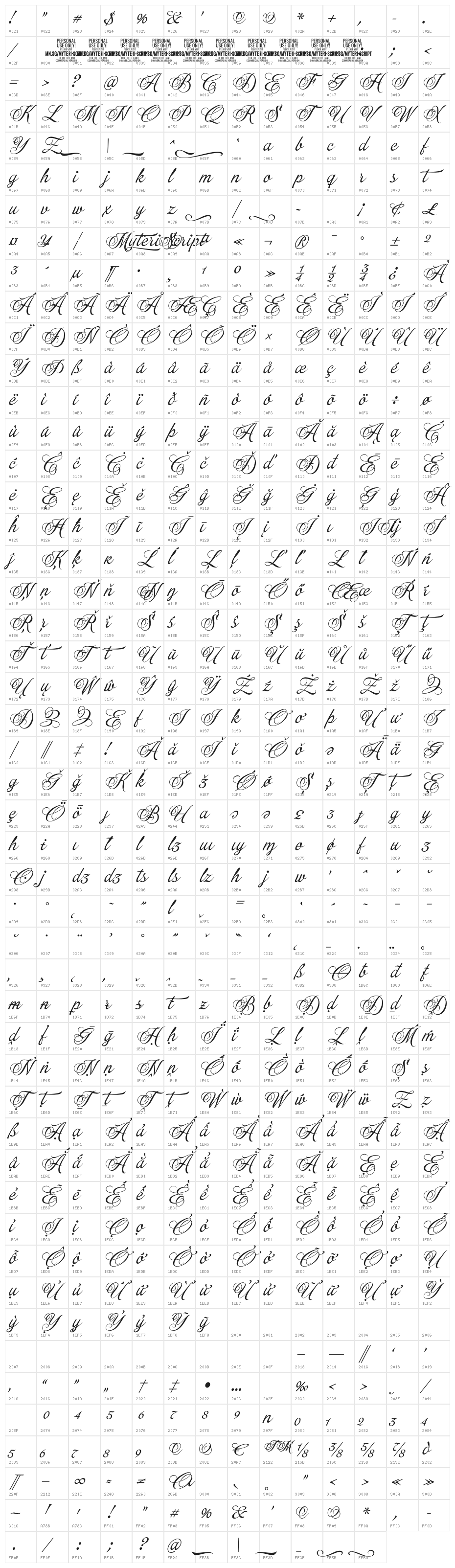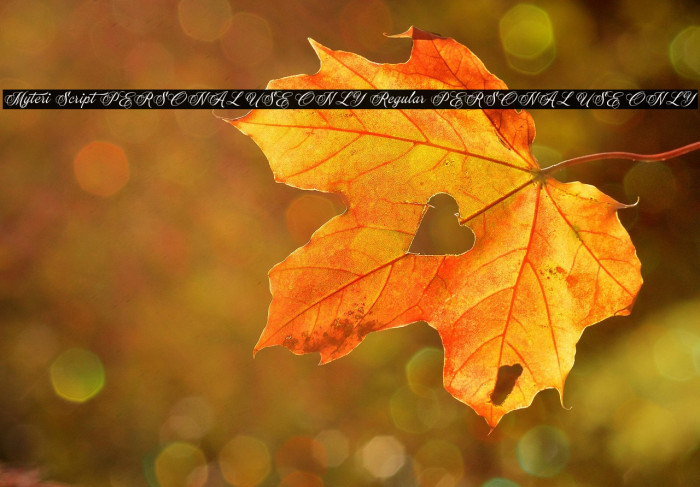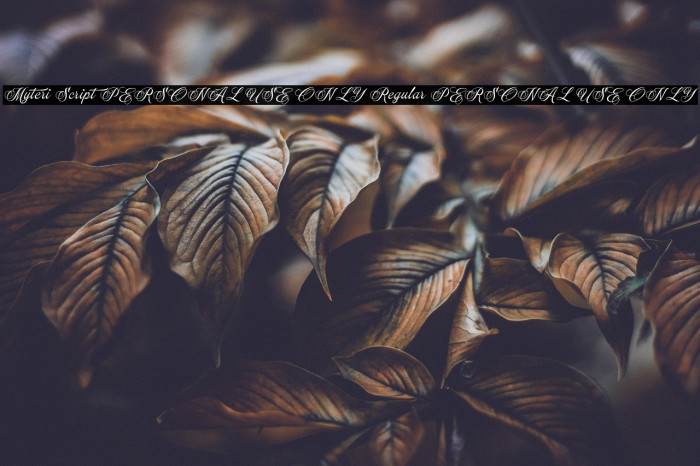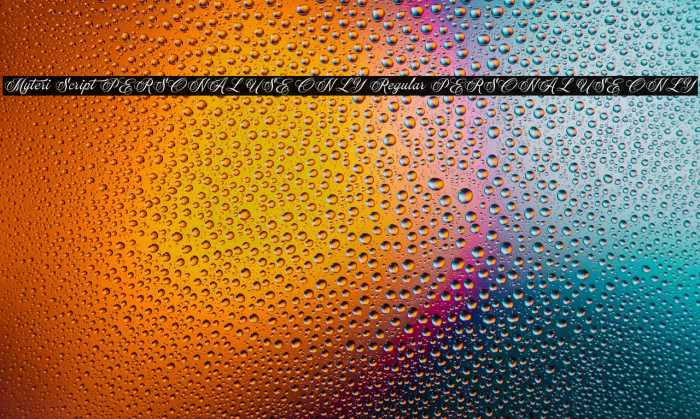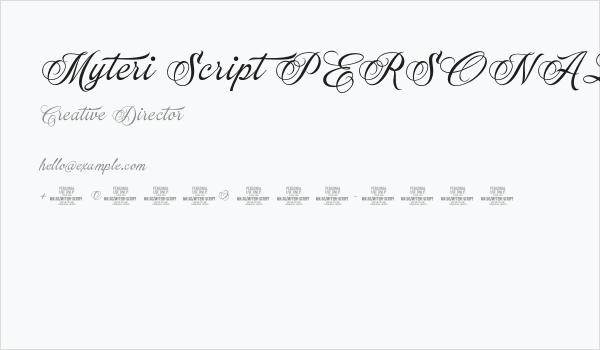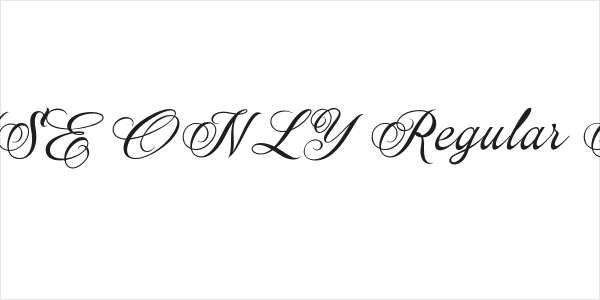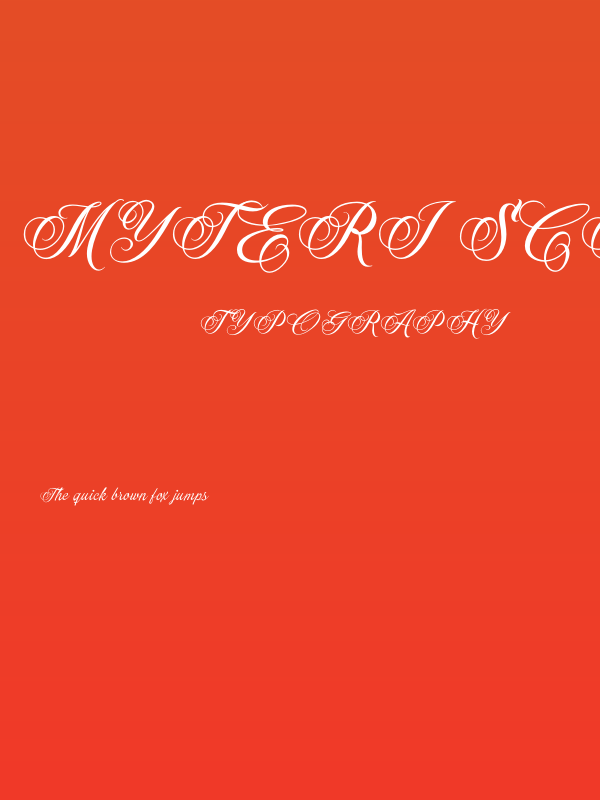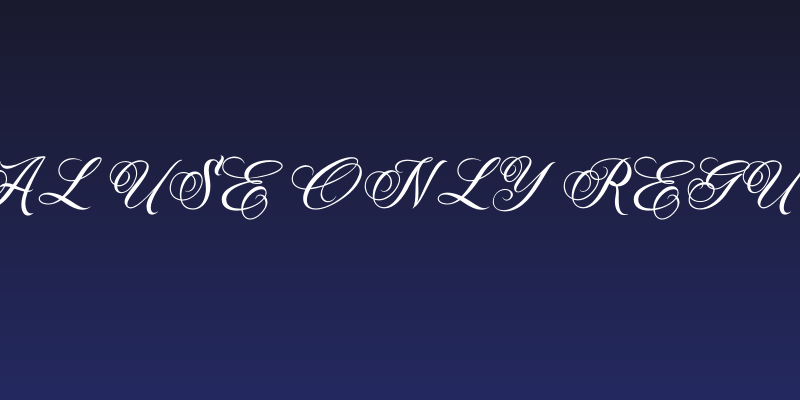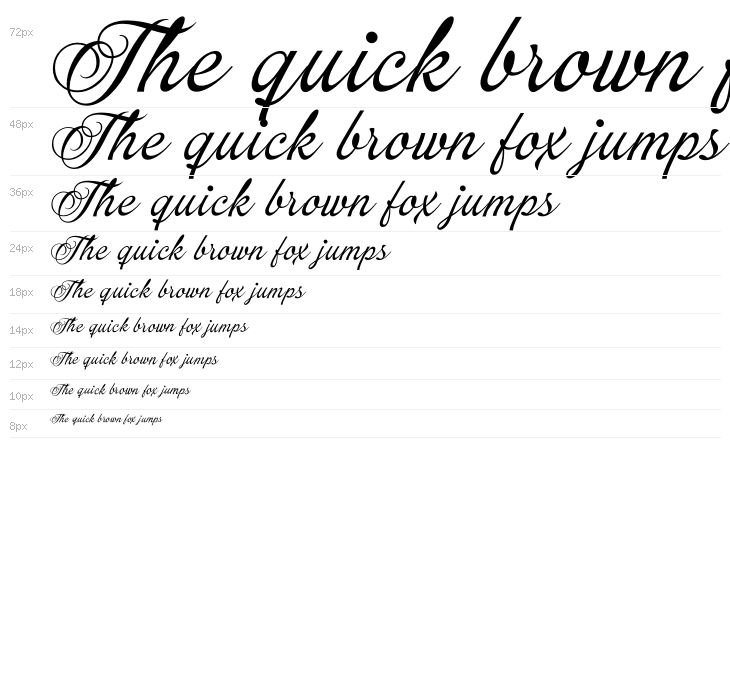
Myteri Script PERSONAL USE ONLY Regular PERSONAL USE ONLY Font
Myteri Script PERSONAL USE ONLY Regular PERSONAL USE ONLY Description
This elegant script font features a flowing, cursive style with intricate loops and flourishes. The uppercase letters are particularly ornate, with each character exhibiting unique swashes that add a touch of sophistication. The lowercase letters maintain a consistent slant, enhancing the fluidity and grace of the text. The numerals are styled to match the overall aesthetic, ensuring a cohesive look across all characters. Special characters are designed with the same attention to detail, making them suitable for decorative purposes. This font is perfect for projects that require a touch of elegance and refinement.